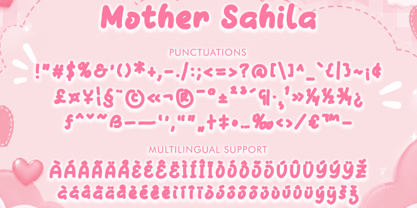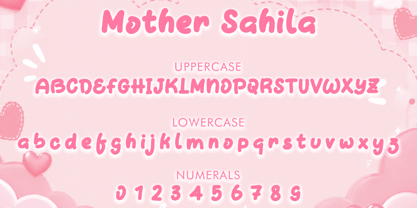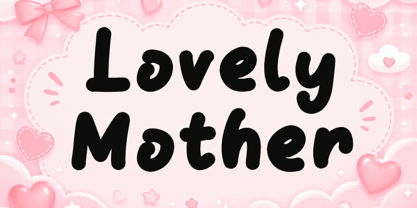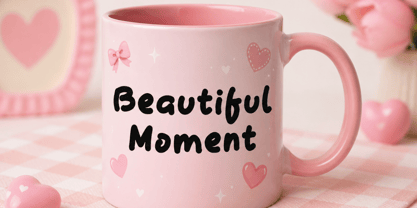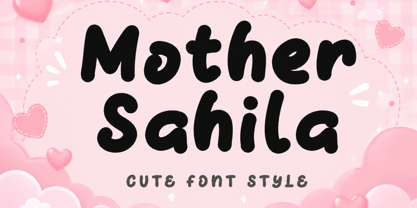
Mother Sahila
by Yoga Letter
The Mother Sahila Font Family was designed by Isroni Yoga Prasetya and published by Yoga Letter. Mother Sahila contains 1 styles. More about this family
Embrace a world of warmth and wonder with Mother Sahila, a charming display typeface that captures a “sweet-and-sun-drenched” soul. This font features thick, ultra-rounded letterforms characterized by rhythmic, hand-drawn curves and a soft, bubbly structure that feels like a cozy embrace. With its heavy structural weight and joyful personality, Mother Belinda is the premier choice for independent baby boutique branding, children’s nursery decor, playful stationery design, and high-impact “cheerful-and-charming” social media headers.
Designers: Isroni Yoga Prasetya
Foundry: Yoga Letter